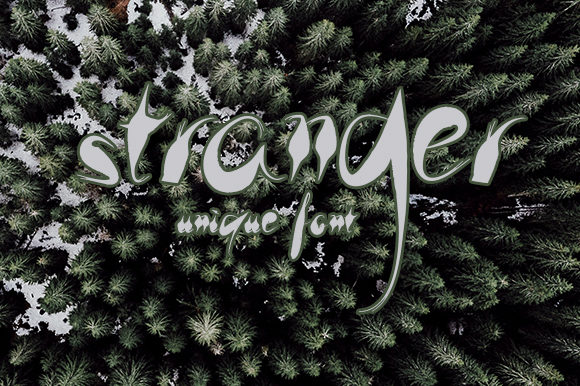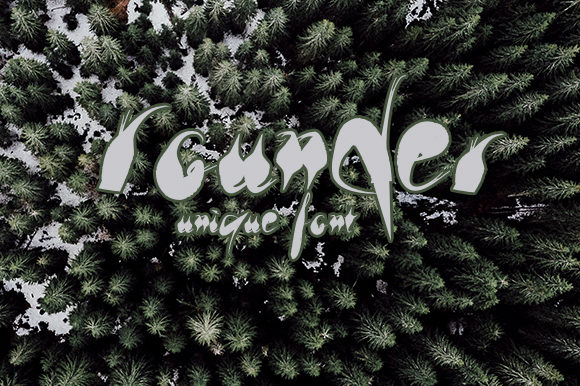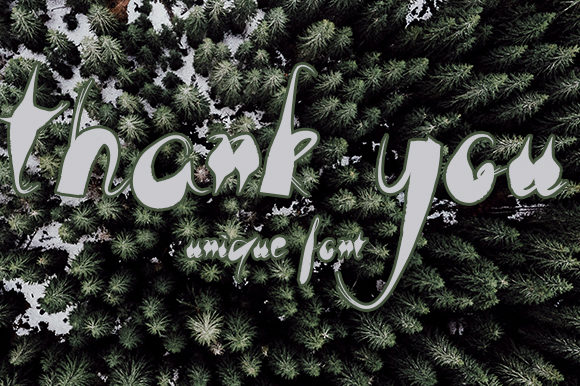
Personal Use Free Stronger 0 171 FacebookTwitterPinterestWhatsApp 1 of 3 About Stronger Font Stronger is a simple and casual display font. Clean and a little bit quirky, this font is the perfect fit for all of your logos, branding, social media, and crafty DIY projects. DOWNLOAD NOW